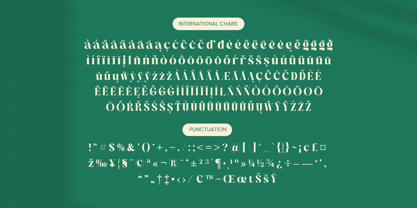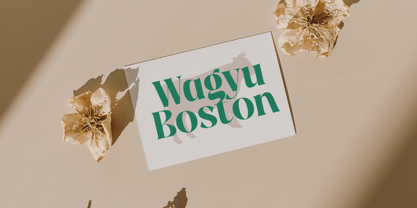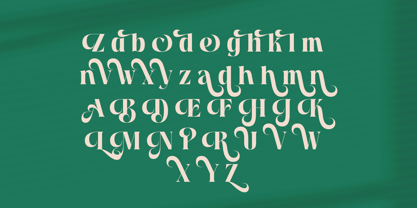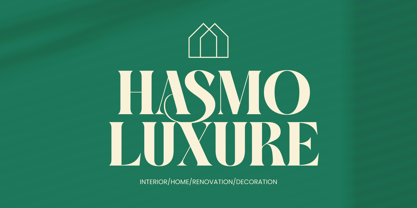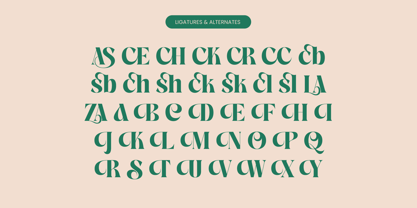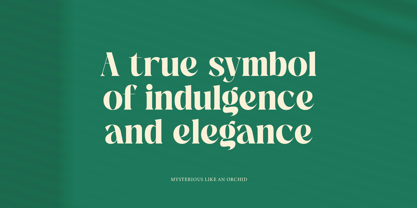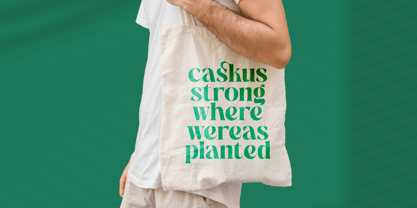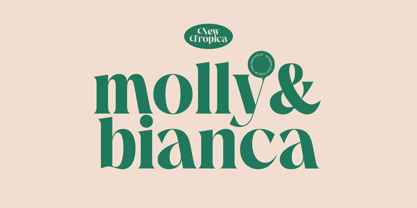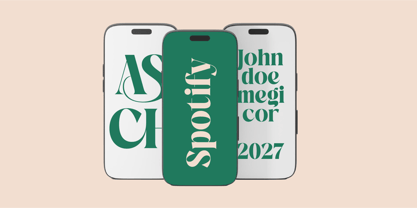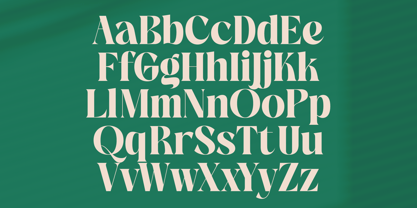
The Bencoy
by Timelesstype Studio
The The Bencoy Font Family was designed by Heru Utama Putra and published by Timelesstype Studio. The Bencoy contains 2 styles and family package options.
The Bencoy - Modern Serif Font , from Timelesstype, Suitable for any projects such as: logos, branding projects, homeware designs, product packaging, mugs, quotes, posters, shopping bags, t-shirts, book covers, name card, invitation cards, greeting cards, label, photography, watermark, special events, and all your other luxury and beautiful projects that need a Luxury Serif taste.